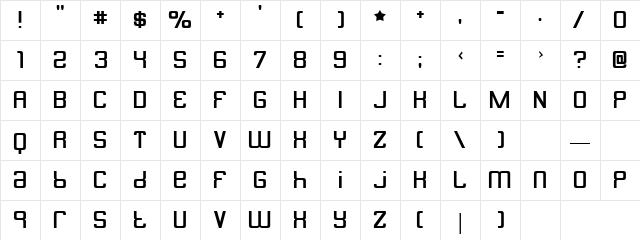
Tall Tom Regular
Design Context for Tall Tom Typeface
Tall Tom takes a measured approach to typography — its balanced proportions and neutral character make it a reliable workhorse for both digital and print work.